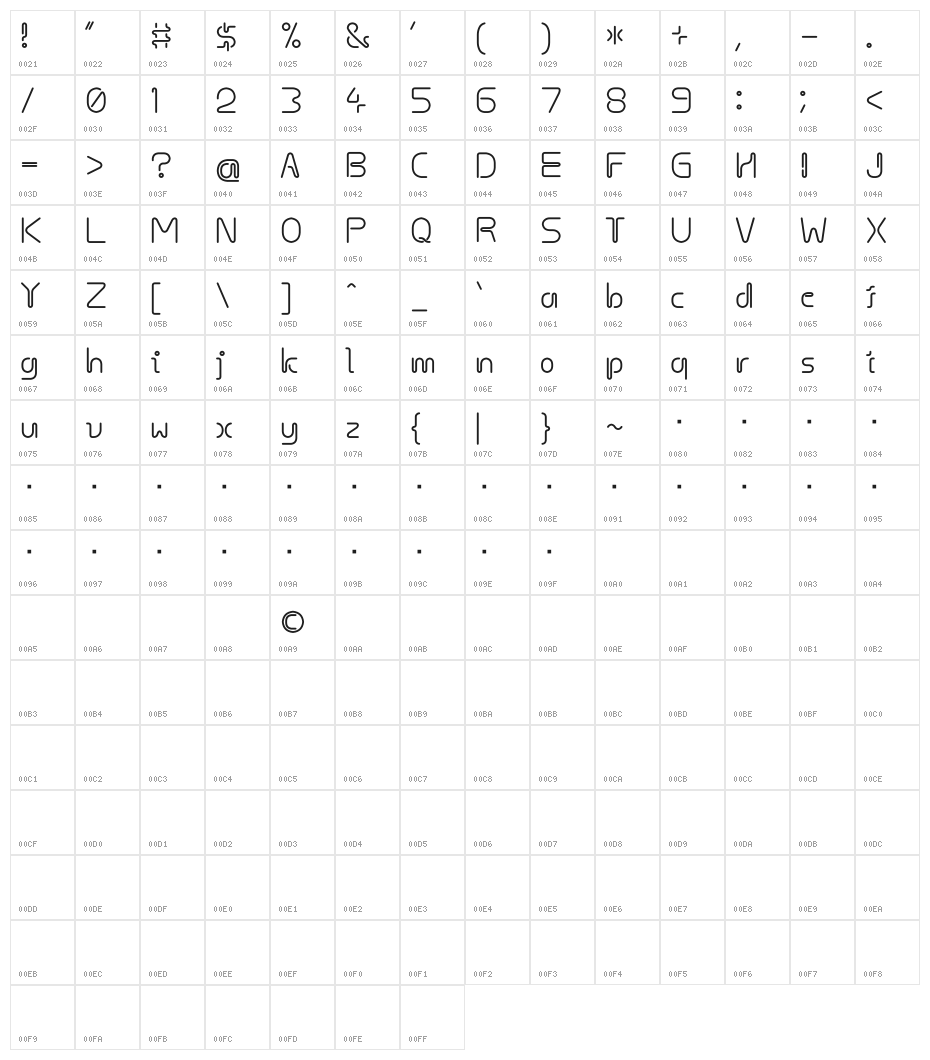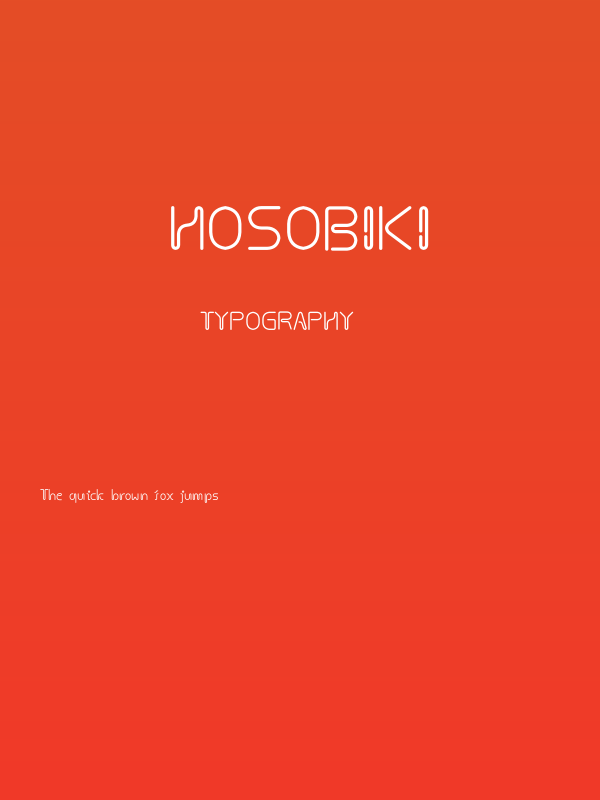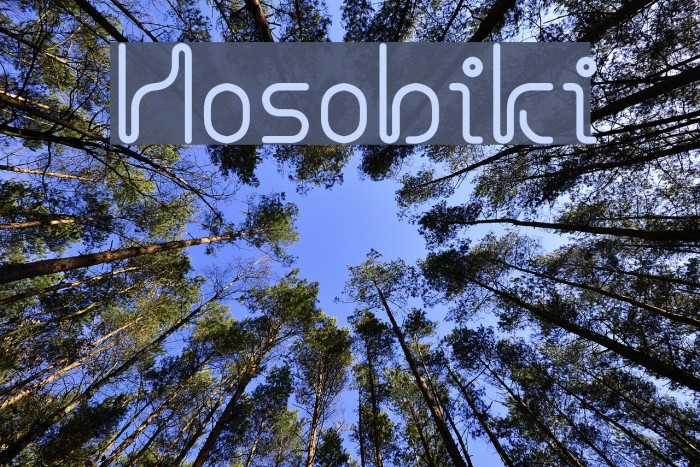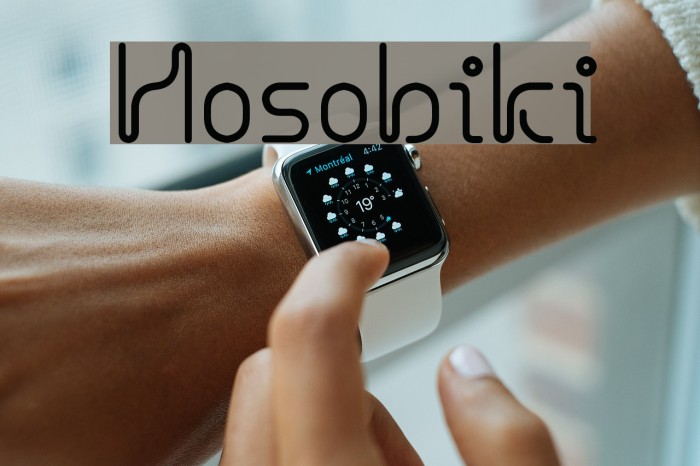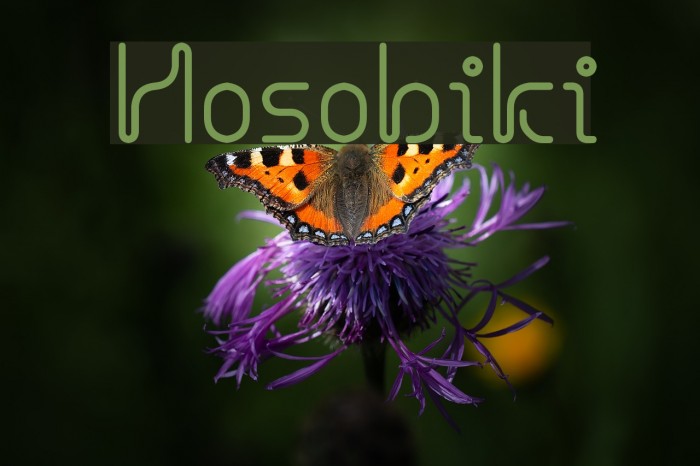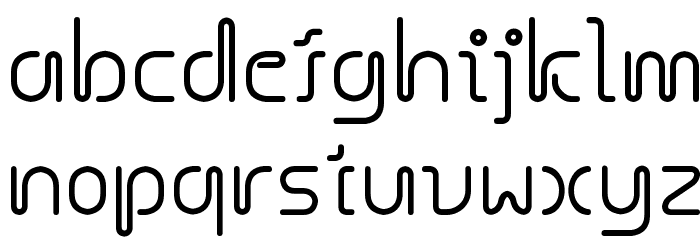
Hosobiki Font
Hosobiki Description
This font features a modern and sleek design with rounded edges and a geometric structure. The characters are uniform in width, giving it a monospaced appearance, yet they maintain a unique flow with subtle curves and angles. The uppercase and lowercase letters are consistent in style, with a futuristic and minimalistic aesthetic. The numbers and special characters follow the same design principles, ensuring a cohesive look across all elements. The font's clean lines and open spaces make it highly legible, even at smaller sizes, while its distinctive style adds a touch of sophistication.
| Use Case | Logos, Headlines, Digital interfaces |
| Proposed Projects | Ideal for tech branding, modern websites, app interfaces, and futuristic design projects. |